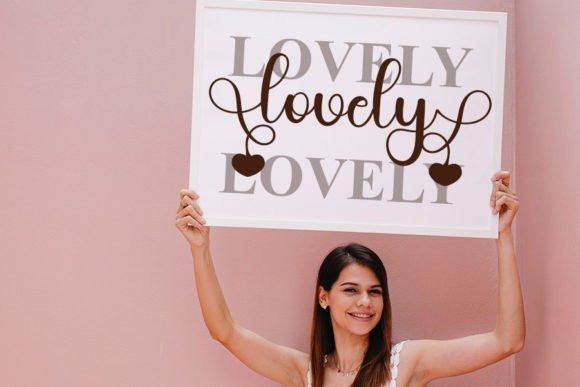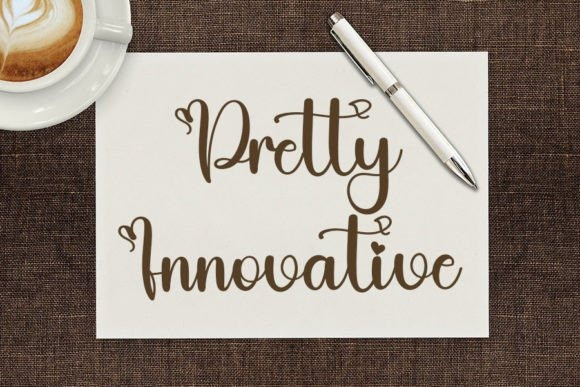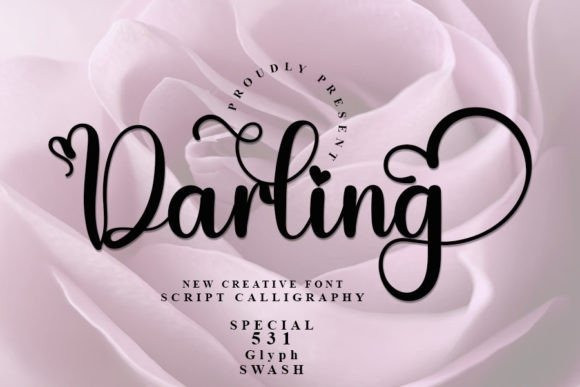
Darling Calligraphy Typeface
Darling Calligraphy Typeface is a trendy handwritten font with a contemporary atmosphere and impeccable form, inspired by a timeless classic calligraphy. It will add elegance and class to any of your design projects. This font can be used to write various kinds of products according to the aspect of each need.